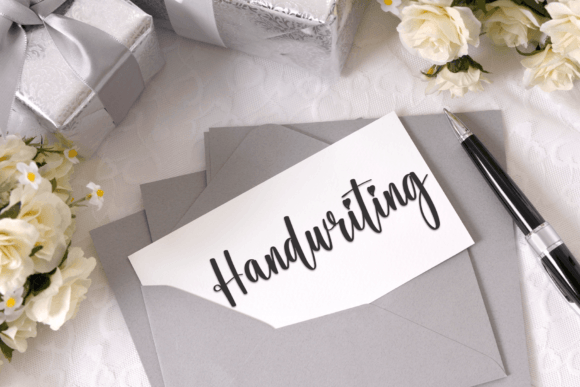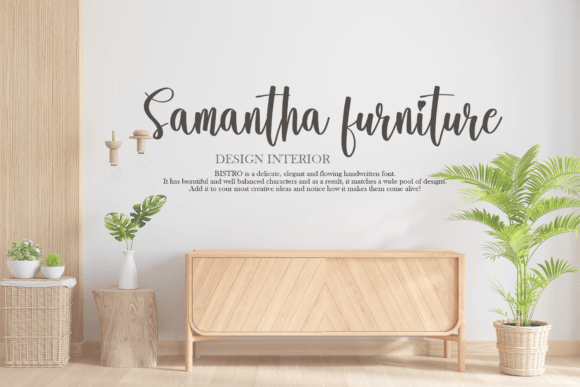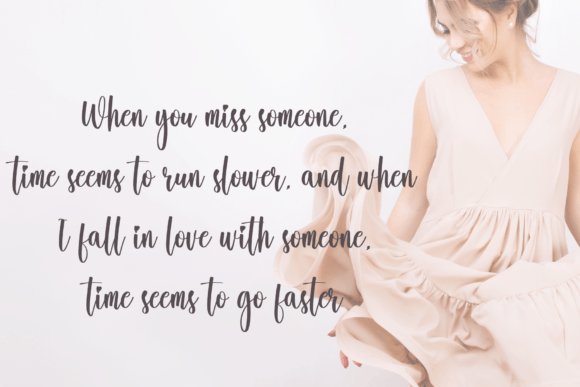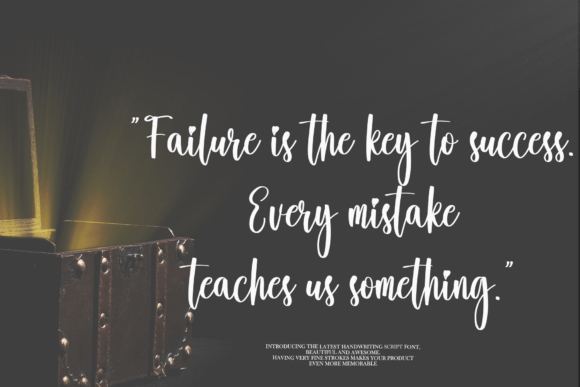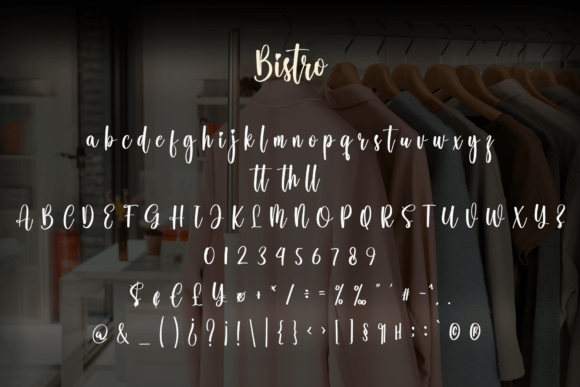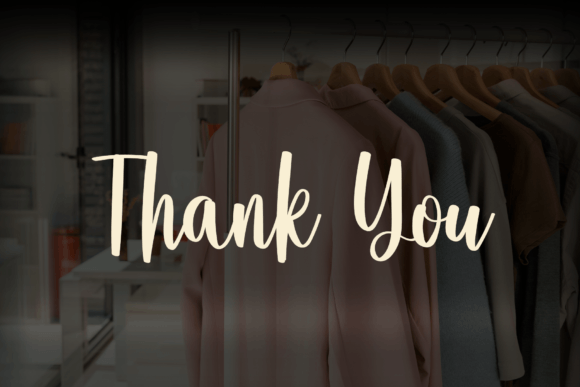
The Bistro Font: A Simple yet Stylish Handwritten Delight
I’ll never forget the time I was working on a wedding invitation project, and my client asked for a font that was both elegant and modern. I scoured the internet, trying out font after font, but nothing seemed quite right. That was until I stumbled upon the Bistro font. With its classy, sophisticated vibe, it was love at first sight! In this article, I’ll share my experience with the Bistro font, its features, and how to make the most of it in your designs.
An Honest Review of Bistro Font
- ✨ Simple and stylish handwritten design
- ✅ Classy, elegant, and modern look
- ✅ Perfect for logos, branding, invitations, stationery, wedding designs, social media posts, and more!
- ✅ Highly versatile and easy to read
While the Bistro font is amazing, there are a few things to keep in mind:
- ⚠️ Limited availability of stylistic alternates (but still offers some nice OpenType features)
- 🤔 May not be the best choice for very long blocks of text (due to its elegant, cursive nature)
A Practical Guide to Using Bistro Font
One of the best things about Bistro font is its OpenType features and glyphs. These allow you to add extra personality to your designs. To access these features, you’ll need to use a program that supports OpenType, like Adobe Photoshop or Illustrator. Some of the features you can expect to find include:
- Ligatures: These are special character combinations that can add a touch of elegance to your text.
- Stylistic alternates: These allow you to swap out certain characters for alternative versions, giving your text a bit more personality.
- Glyphs: These are special characters that can add a touch of whimsy to your design.
The Story Behind Bistro Font
While the true story behind Bistro font may be unknown, it’s easy to imagine a designer sitting in a quaint café, sipping coffee and sketching out letters on a napkin. The result is a font that’s both elegant and approachable, perfect for a wide range of design projects.
Q: What type of projects is Bistro font best suited for?
A: Bistro font is perfect for logos, branding, invitations, stationery, wedding designs, social media posts, and more!
Q: Is Bistro font easy to read?
A: Yes, Bistro font is highly legible and easy to read, making it perfect for a wide range of design projects.